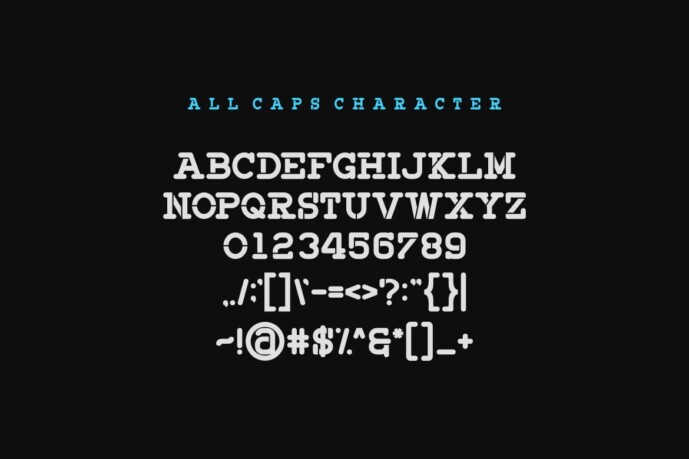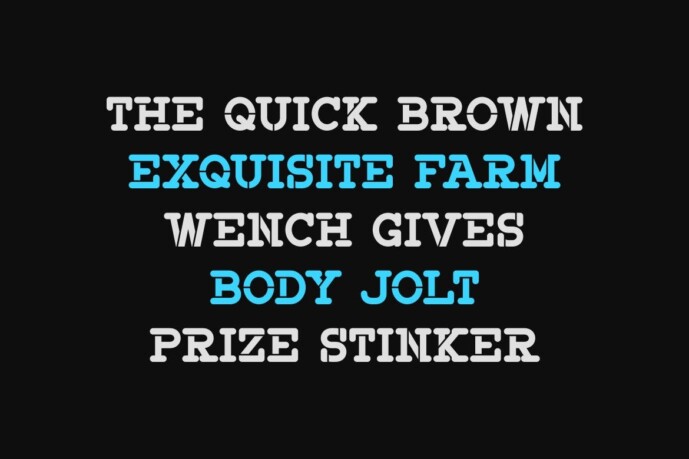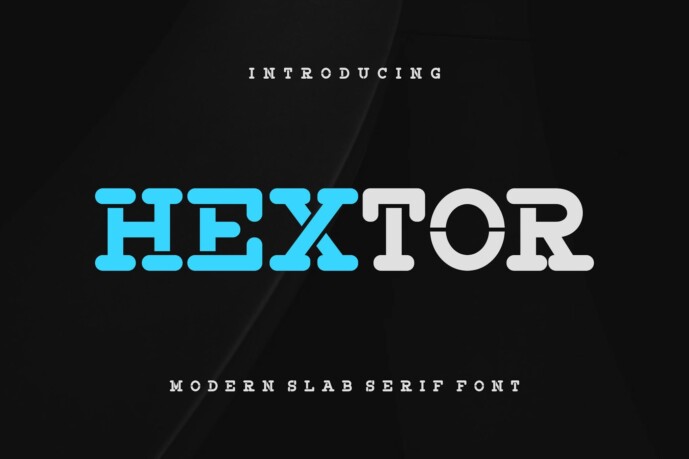
Hextor Font
Designer: dellux_design
Hextor Font is a unique font. Can make it easier to convey the message in your design. Use it for display, labeling, clothing, movie scene, poster, movie title, concerts, album covers, logos and much more